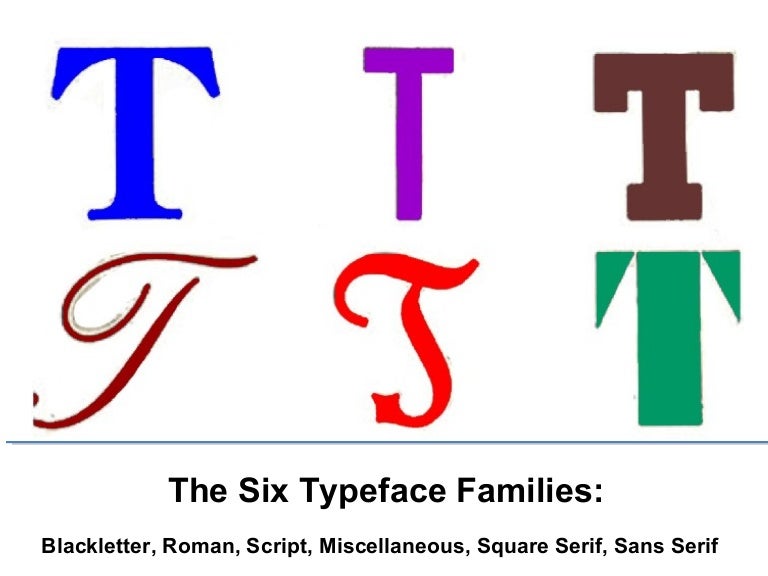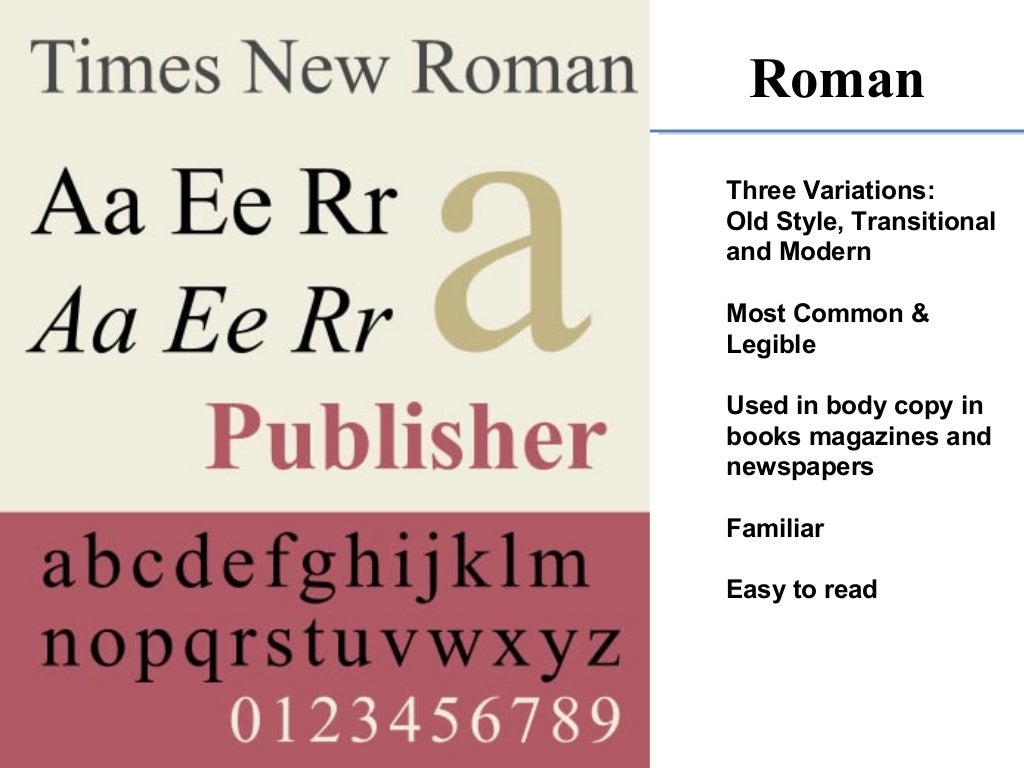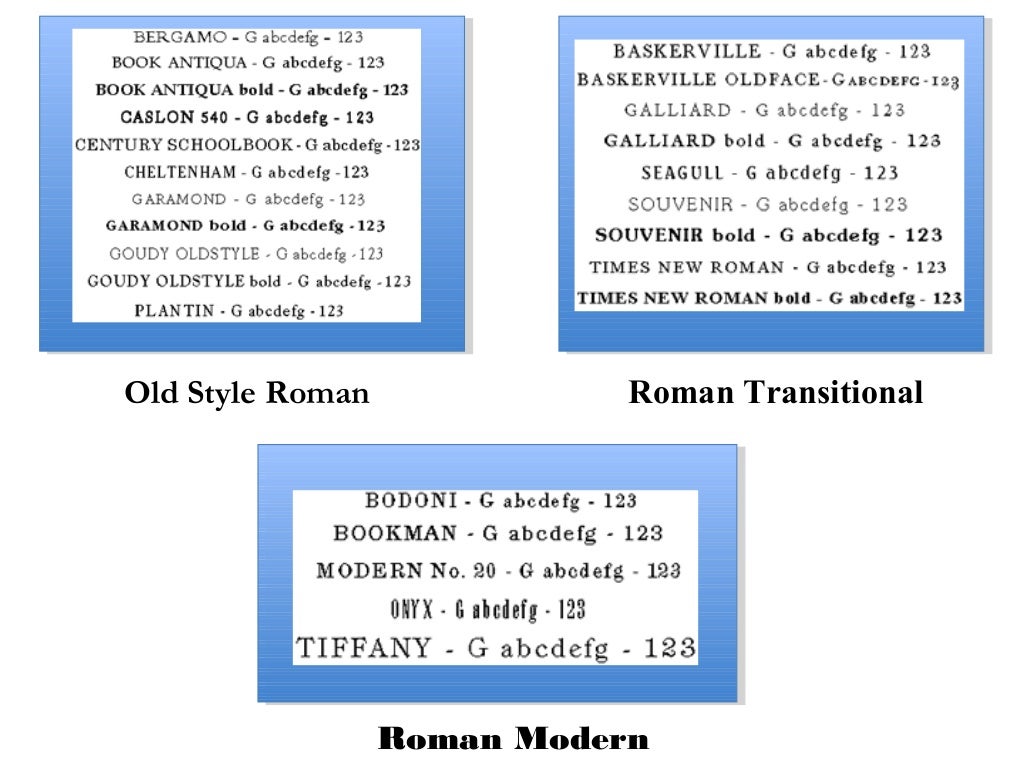
A Complete Character Set Within A Typeface Family . a font is a complete character set of a typeface at a particular size, weight, and style. This includes letters, numbers, punctuation marks, and symbols, all crafted in a distinctive style that. A complete character set within a typeface family; Or, an oil reservoir in a lamp (4), 4 letters crossword clue. Look for more clues & answers. The cheltenham, century, cloister, and stymie typeface. in this lesson, we'll talk about the different typeface families and their characteristics: the crossword solver found 30 answers to a complete character set within a typeface family; The crossword solver finds answers to classic. the crossword solver found 30 answers to a complete character set within a typeface, 4 letters crossword clue. Serif vs sans serif, which one to. Basic notions that are good to have and make it easier to talk about typography: Did you find this helpful? the layman’s typeface definition is a set of characters that share a common design. Fonts, typefaces and type families.
Fonts, typefaces and type families. the crossword solver found 30 answers to a complete character set within a typeface, 4 letters crossword clue. This includes letters, numbers, punctuation marks, and symbols, all crafted in a distinctive style that. The cheltenham, century, cloister, and stymie typeface. in this lesson, we'll talk about the different typeface families and their characteristics: A complete character set within a typeface family; The crossword solver finds answers to classic crosswords and cryptic crossword puzzles. The crossword solver finds answers to classic. a font is a complete character set of a typeface at a particular size, weight, and style. benton’s premise was that typefaces within a family would share the basic characteristics of the parent design, but with individual variances.
The Basics of Typeface Anatomy
A Complete Character Set Within A Typeface Family Look for more clues & answers. The cheltenham, century, cloister, and stymie typeface. Serif vs sans serif, which one to. Fonts, typefaces and type families. the layman’s typeface definition is a set of characters that share a common design. benton’s premise was that typefaces within a family would share the basic characteristics of the parent design, but with individual variances. Look for more clues & answers. A complete character set within a typeface family; the crossword solver found 30 answers to a complete character set within a typeface, 4 letters crossword clue. Or, an oil reservoir in a lamp (4), 4 letters crossword clue. in this lesson, we'll talk about the different typeface families and their characteristics: The crossword solver finds answers to classic. Basic notions that are good to have and make it easier to talk about typography: a font is a complete character set of a typeface at a particular size, weight, and style. The crossword solver finds answers to classic crosswords and cryptic crossword puzzles. the crossword solver found 30 answers to a complete character set within a typeface family;
Graphic Design Terms 34 Typeface vs Font Kaz Design Works A Complete Character Set Within A Typeface Family The crossword solver finds answers to classic crosswords and cryptic crossword puzzles. the crossword solver found 30 answers to a complete character set within a typeface family; in this lesson, we'll talk about the different typeface families and their characteristics: Fonts, typefaces and type families. benton’s premise was that typefaces within a family would share the basic. A Complete Character Set Within A Typeface Family.
The Basics of Typeface Anatomy A Complete Character Set Within A Typeface Family in this lesson, we'll talk about the different typeface families and their characteristics: Basic notions that are good to have and make it easier to talk about typography: The cheltenham, century, cloister, and stymie typeface. Serif vs sans serif, which one to. the crossword solver found 30 answers to a complete character set within a typeface family; This. A Complete Character Set Within A Typeface Family.
PPT Typography PowerPoint Presentation, free download ID1491090 A Complete Character Set Within A Typeface Family the layman’s typeface definition is a set of characters that share a common design. The cheltenham, century, cloister, and stymie typeface. Did you find this helpful? Fonts, typefaces and type families. Or, an oil reservoir in a lamp (4), 4 letters crossword clue. This includes letters, numbers, punctuation marks, and symbols, all crafted in a distinctive style that. . A Complete Character Set Within A Typeface Family.
Characteristic Of A Serif Typeface Characters In Alice PELAJARAN A Complete Character Set Within A Typeface Family benton’s premise was that typefaces within a family would share the basic characteristics of the parent design, but with individual variances. the crossword solver found 30 answers to a complete character set within a typeface, 4 letters crossword clue. the crossword solver found 30 answers to a complete character set within a typeface family; The crossword solver. A Complete Character Set Within A Typeface Family.
Typeface families A Complete Character Set Within A Typeface Family The cheltenham, century, cloister, and stymie typeface. Basic notions that are good to have and make it easier to talk about typography: The crossword solver finds answers to classic crosswords and cryptic crossword puzzles. Did you find this helpful? the crossword solver found 30 answers to a complete character set within a typeface family; Fonts, typefaces and type families.. A Complete Character Set Within A Typeface Family.
Typeface vs Font The Difference Between Font And Typeface A Complete Character Set Within A Typeface Family The crossword solver finds answers to classic crosswords and cryptic crossword puzzles. A complete character set within a typeface family; Basic notions that are good to have and make it easier to talk about typography: The cheltenham, century, cloister, and stymie typeface. the layman’s typeface definition is a set of characters that share a common design. Did you find. A Complete Character Set Within A Typeface Family.
Typeface families A Complete Character Set Within A Typeface Family a font is a complete character set of a typeface at a particular size, weight, and style. Fonts, typefaces and type families. Did you find this helpful? A complete character set within a typeface family; Or, an oil reservoir in a lamp (4), 4 letters crossword clue. This includes letters, numbers, punctuation marks, and symbols, all crafted in a. A Complete Character Set Within A Typeface Family.